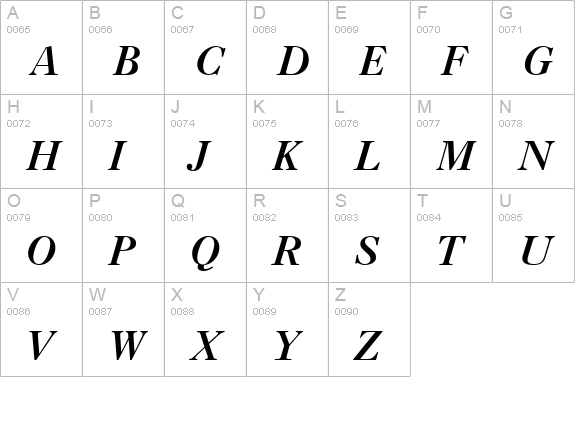
Caslon 3 ITALIC Font Details
Caslon 3 ITALIC is a distinctive, italic variant in the Caslon typeface family \xE2\x80\x94 well suited to design and typography projects.
Caslon 3 ITALIC is a classic and elegant font that exudes sophistication and timeless style. Its slanted and gracefully flowing italic design adds a touch of flair to any project, making it perfect for conveying a sense of refinement and luxury. The delicate serifs and subtle curves of Caslon 3 ITALIC create a harmonious balance that is both pleasing to the eye and easy to read. This exquisite font is ideal for adding a touch of class to invitations, wedding materials, branding, and editorial design projects. Whether you are looking to evoke a sense of tradition or add a modern twist to your designs, Caslon 3 ITALIC is a versatile choice that will elevate your work to the next level. Best of all, Caslon 3 ITALIC is freely available to download at FontsMarket.com, making it easily accessible for designers and creatives looking to enhance their projects with a touch of sophistication. Don't miss out on the opportunity to elevate your designs with this beautiful and timeless font. Download Caslon 3 ITALIC today and add a touch of elegance to your next project.